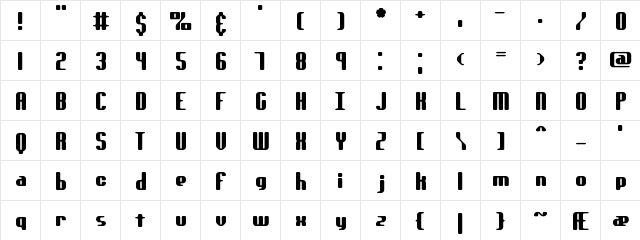
genotype RS BRK Normal
| Foundry | ƎIGMA FONTS |
| Designer | ƎIGMA FONTS - Brian Kent |
Design Context for genotype RS BRK Typeface
genotype RS BRK takes a measured approach to typography — its balanced proportions and neutral character make it a reliable workhorse for both digital and print work.